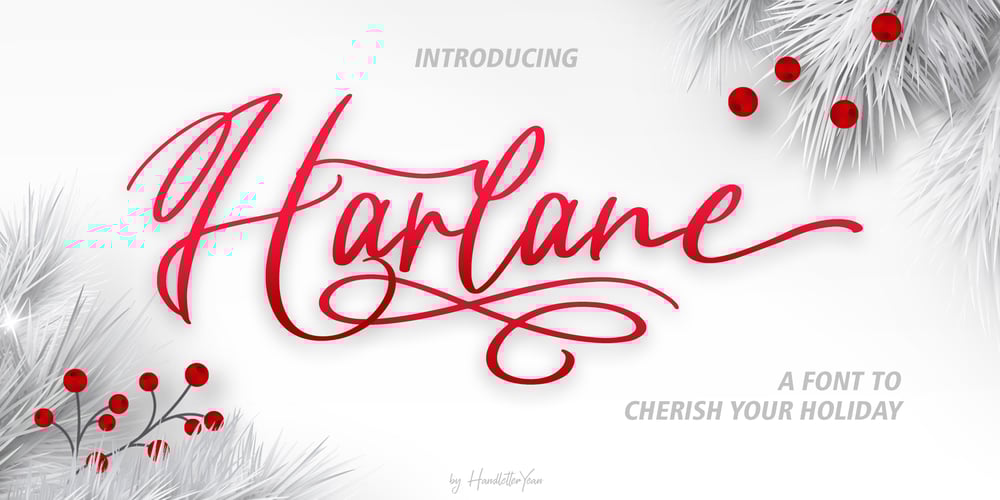
Harlane Font Family was designed by Yean Aguste and published by HandletterYean. Harlane contains 2 styles and family package options. Winter with all its activities always has a special meaning for us, that’s why there are lots of sweet memories during this season. To help you make it into unforgettable memories we present to you Harlane, which is a font specially made to cherish your holiday and make it more meaningful. Features in Harlane are alternates, titling, swashes, and underlines that will make your idea looks more beautiful. Feel free to use this font for your craft-work, book, cover, name card, poster, logo, magazine, cover, banner, T-shirt, or even artwork on a large scale.